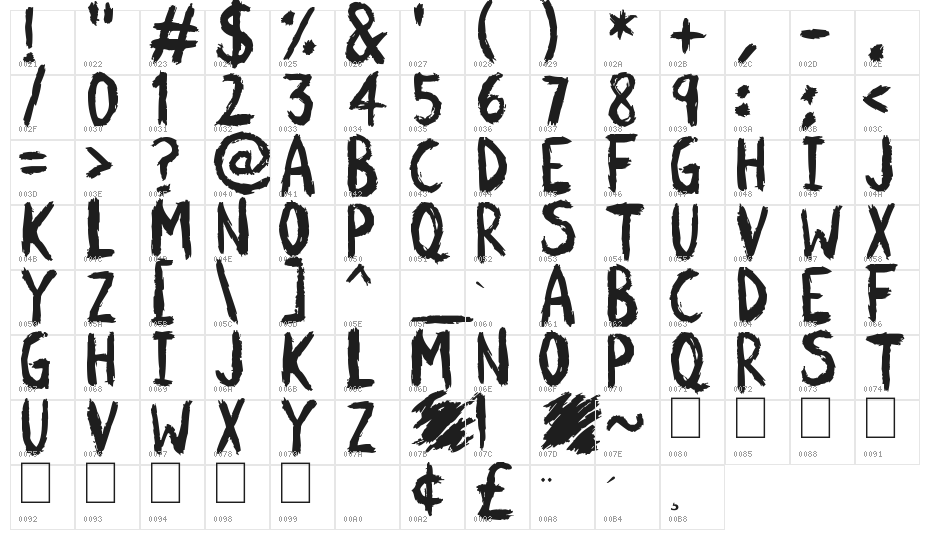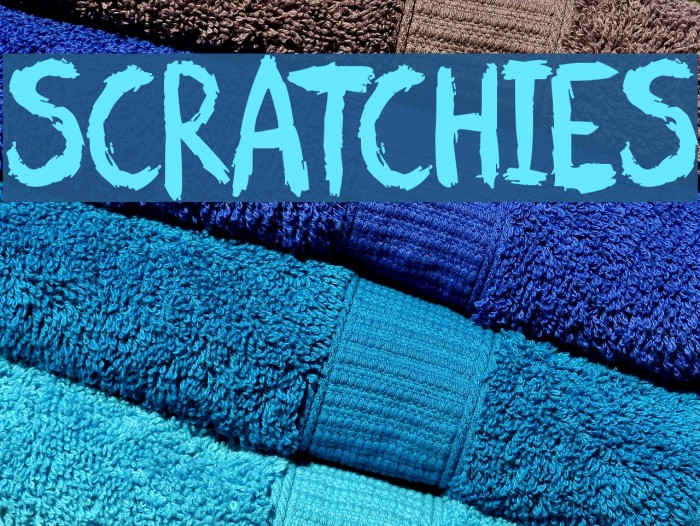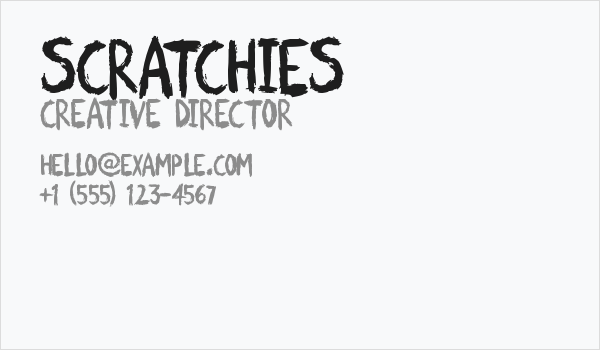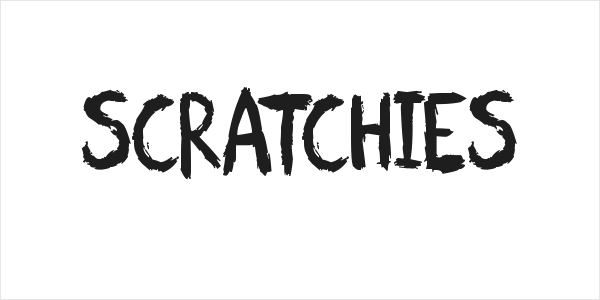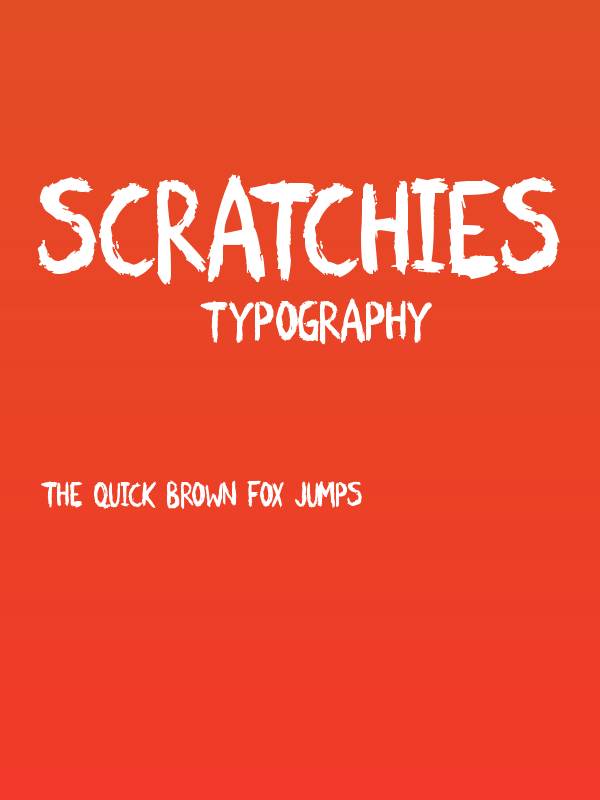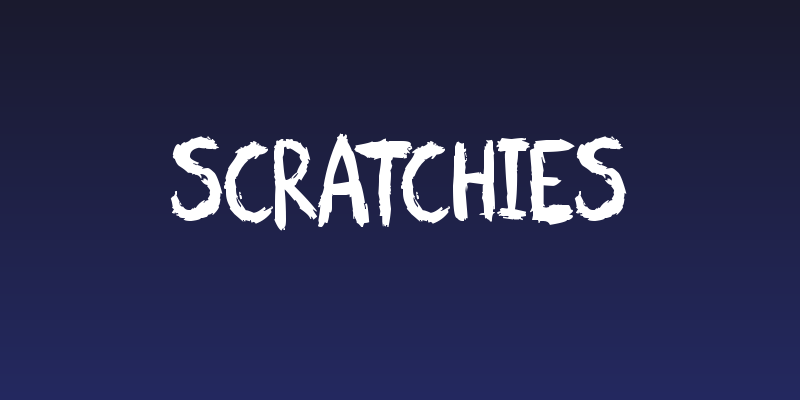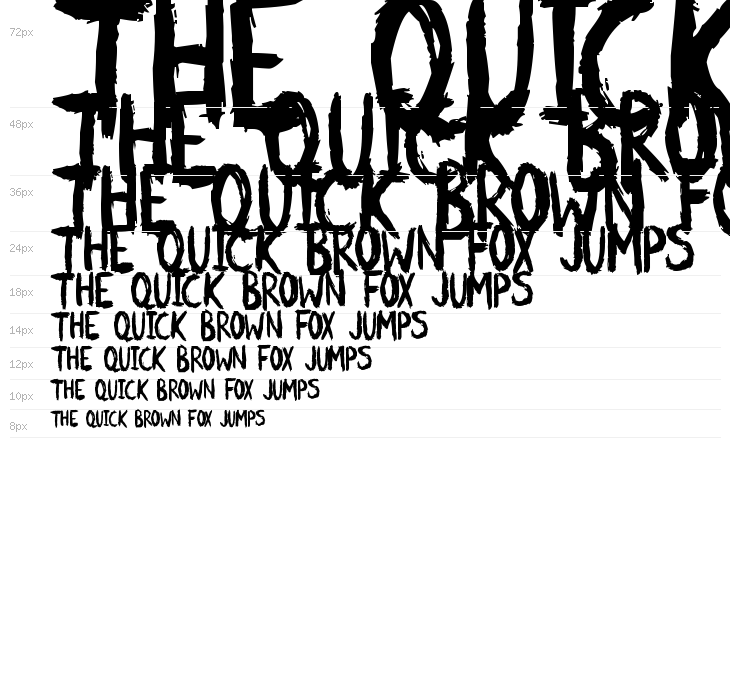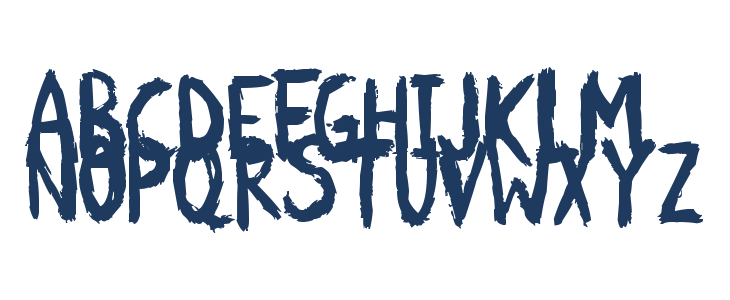
Scratchies Font
| Proiecte propuse | Ideal for album covers, posters, streetwear branding, graffiti art, and any project needing a bold, edgy look. |